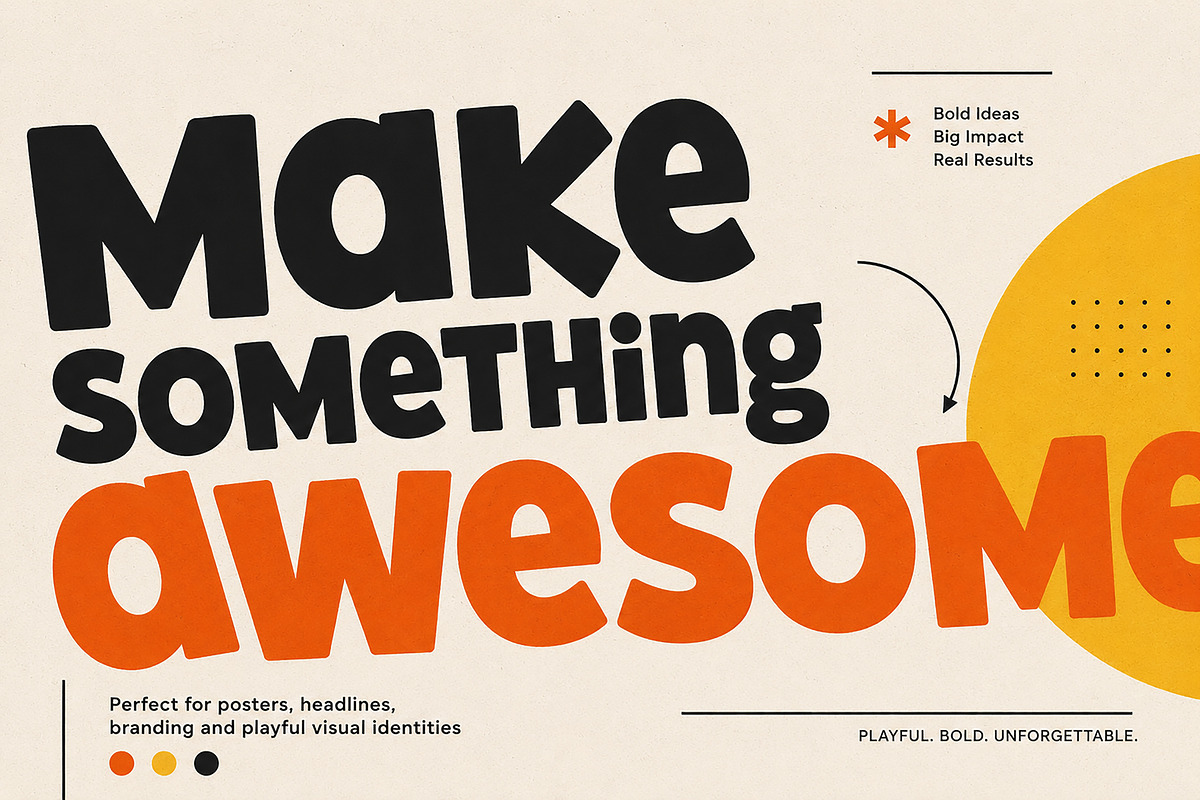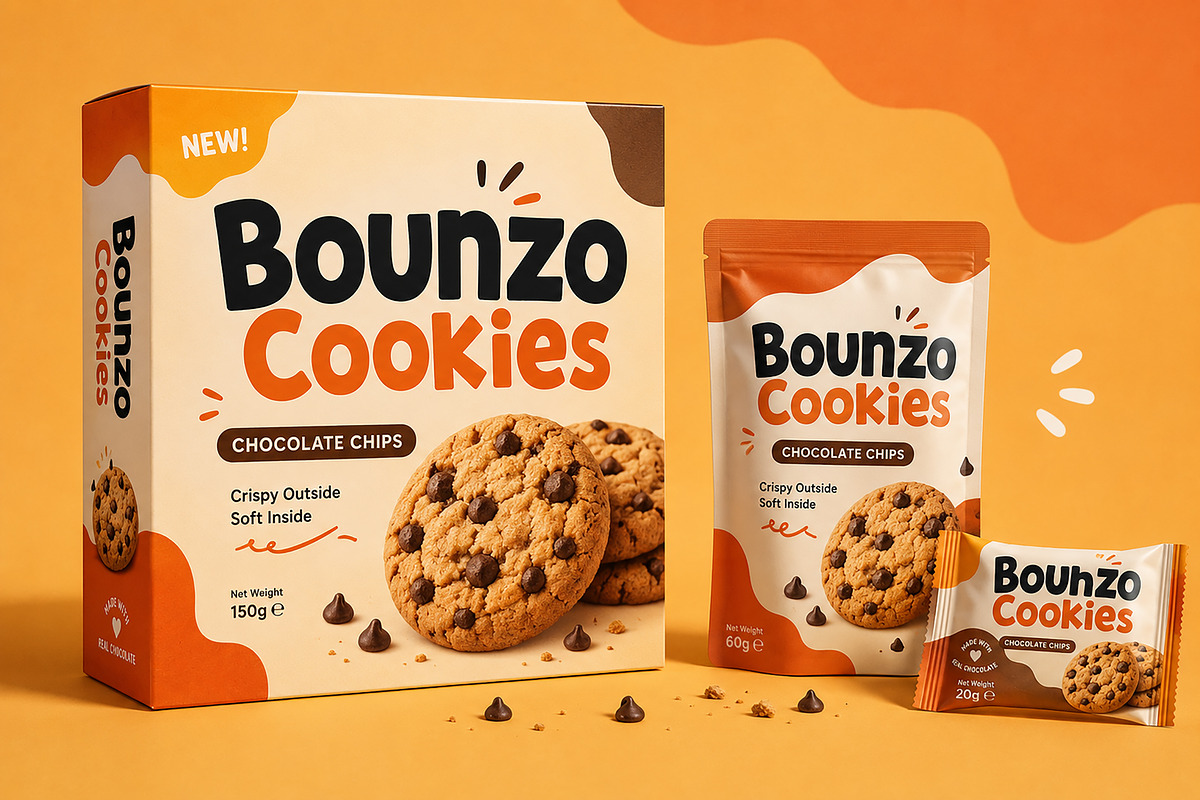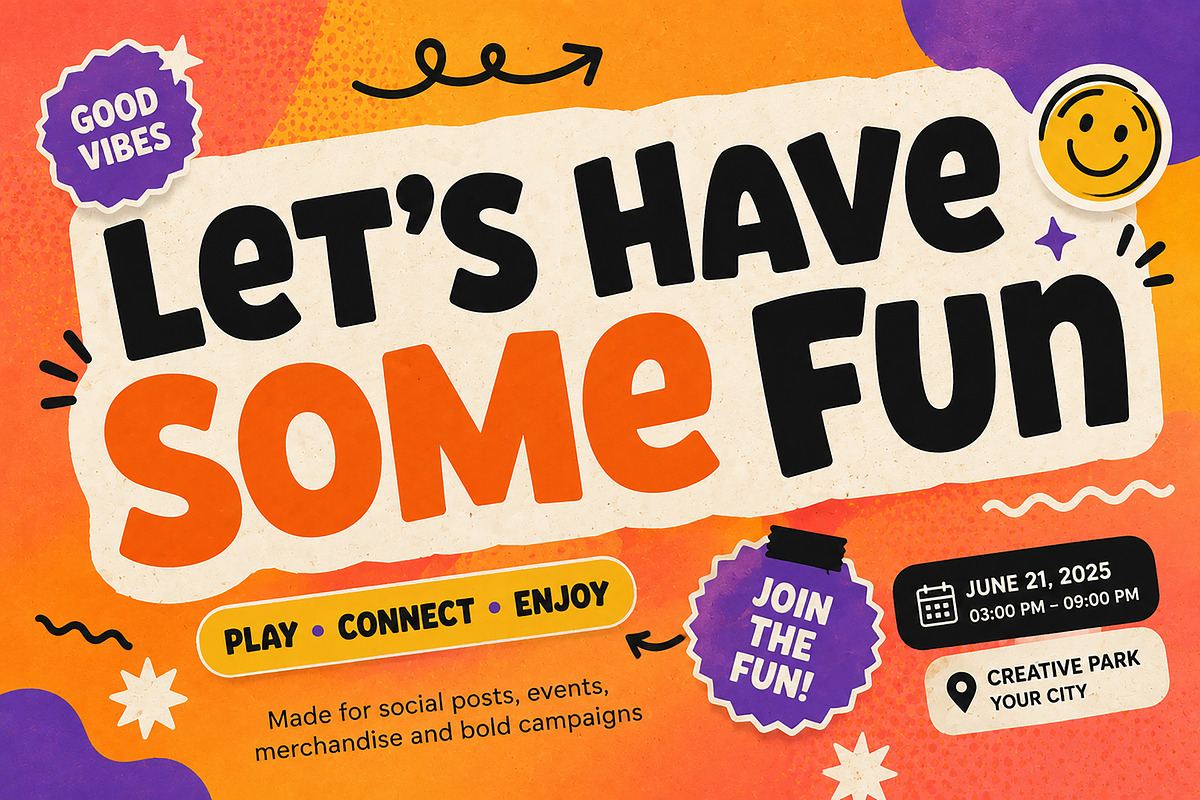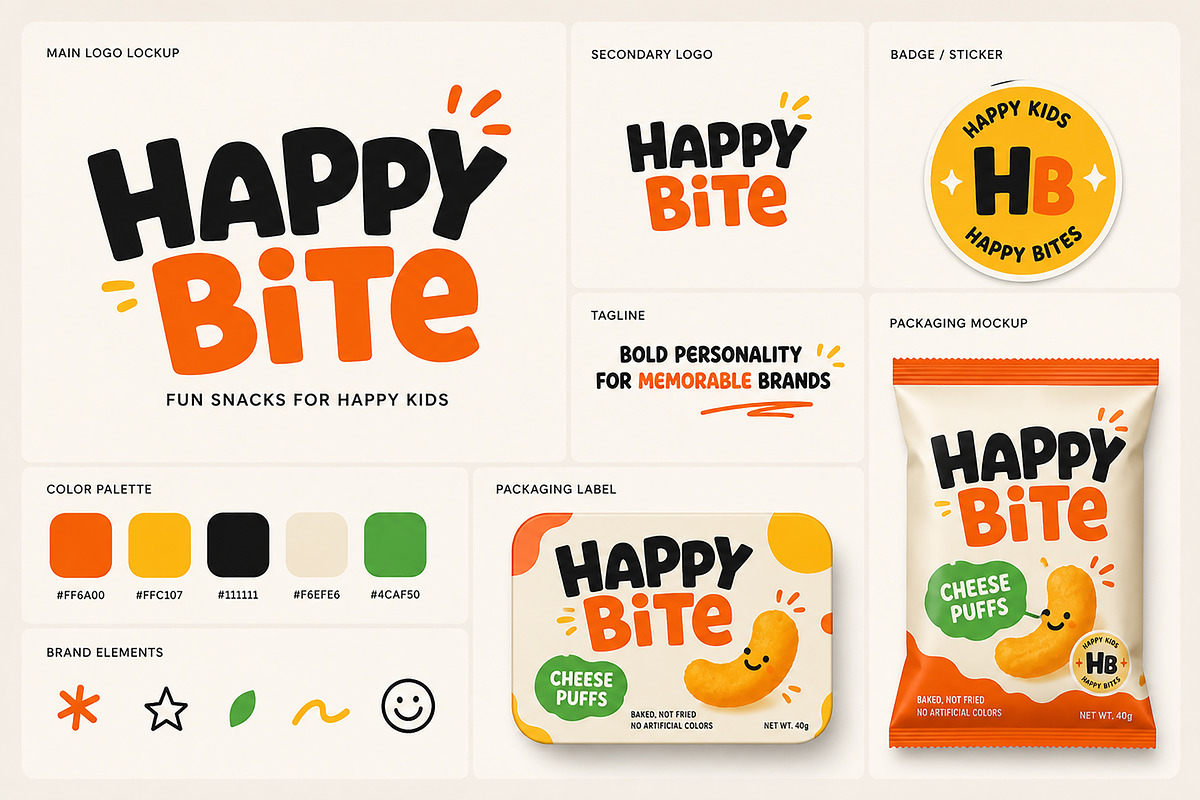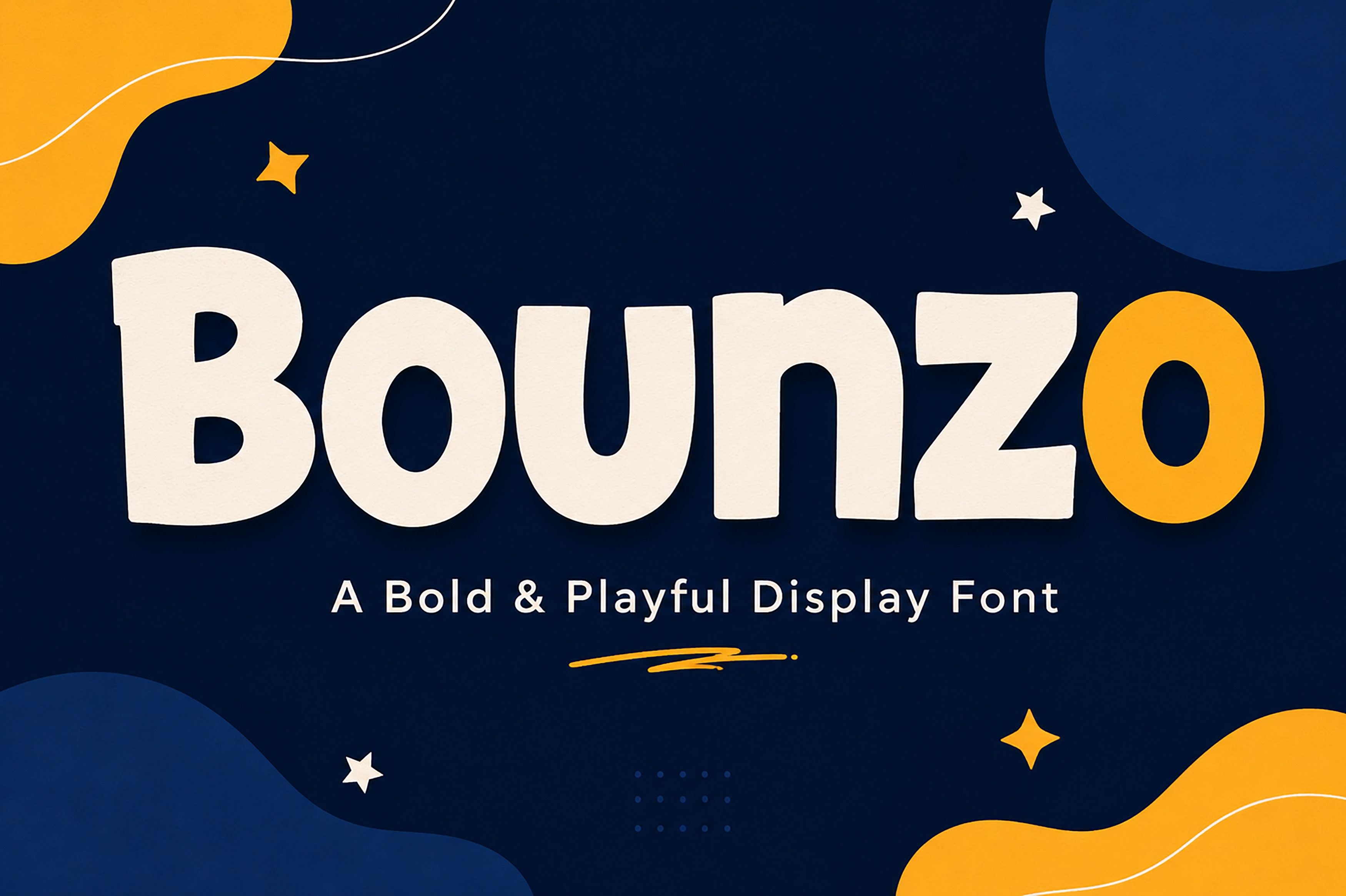
Bounzo – Bold & Playful Display Font
Meet Bounzo, a bold and playful display font designed to make every headline impossible to ignore. With its chunky letterforms, rounded edges, and energetic personality, Bounzo brings a fun, modern, and friendly vibe to any creative project.
Whether you're designing eye-catching posters, colorful packaging, playful branding, social media graphics, or children's products, Bounzo delivers a strong visual impact while remaining clean, readable, and full of character.
Its bold shapes and handcrafted feel make it a perfect choice for designers who want typography that stands out with confidence and creativity.
Branding & Visual Identity
Posters & Headlines
Food & Beverage Branding
Kids' Products
YouTube Thumbnails
T-Shirt Designs
Stickers
Event Promotions
Advertising
Editorial Titles
Bounzo is the perfect choice when your design needs to feel bold, fun, energetic, and unforgettable.